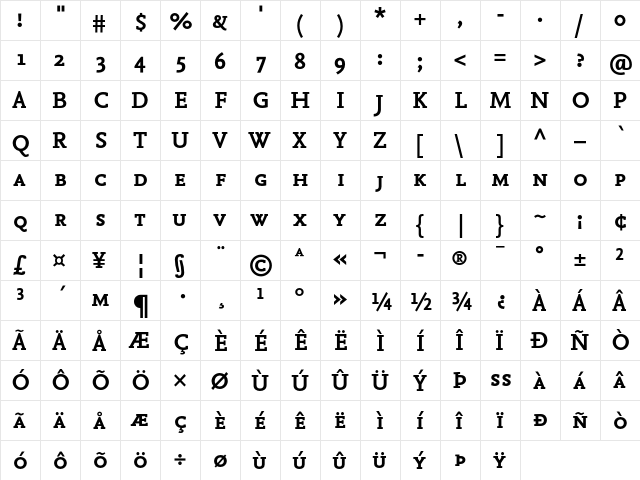
NexusMix-BoldSC Regular Font Preview
NexusMix-BoldSC Regular
NexusMix-BoldSC Regular Font Details
Design Context for NexusMix-BoldSC Typeface
NexusMix-BoldSC offers clean, dependable letterforms without strong stylistic allegiance, making it a practical choice for designers who need flexibility. The heavy weight commands attention and anchors typographic hierarchies.